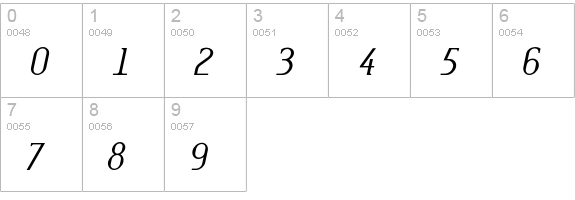
Maverick-LightItalic Font Details
Maverick-LightItalic is a sleek and modern font that exudes sophistication and elegance. Its delicate italic design adds a touch of finesse to any project, making it perfect for stylish branding, editorial designs, and more. The graceful curves and unique details of Maverick-LightItalic set it apart from traditional fonts, giving your creations a distinct and refined look. And the best part? Maverick-LightItalic is completely free to download at FontsMarket.com! This means you can easily access this stunning font and use it in your projects without any cost. Don't miss out on the opportunity to enhance your designs with Maverick-LightItalic's beauty and versatility. Download it now and elevate your creative work to new heights.